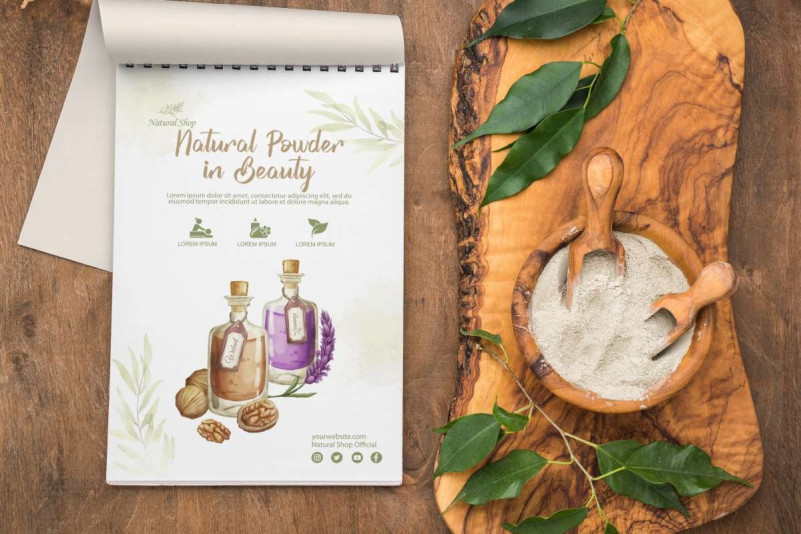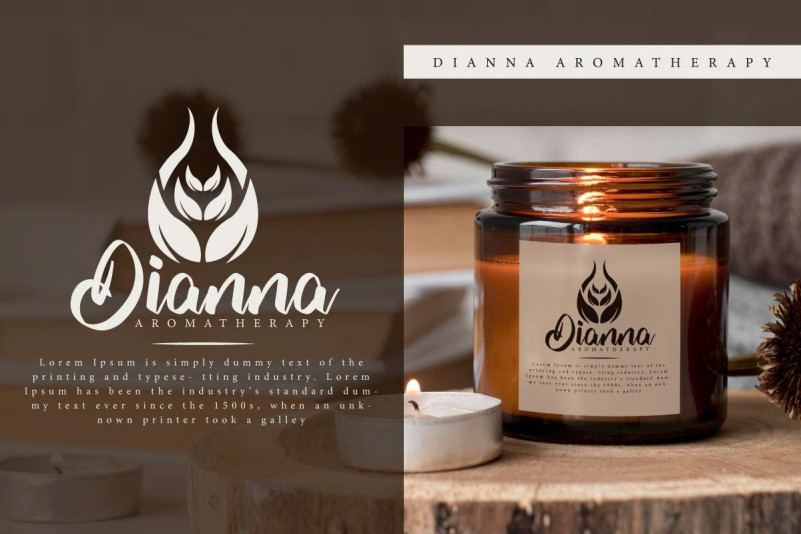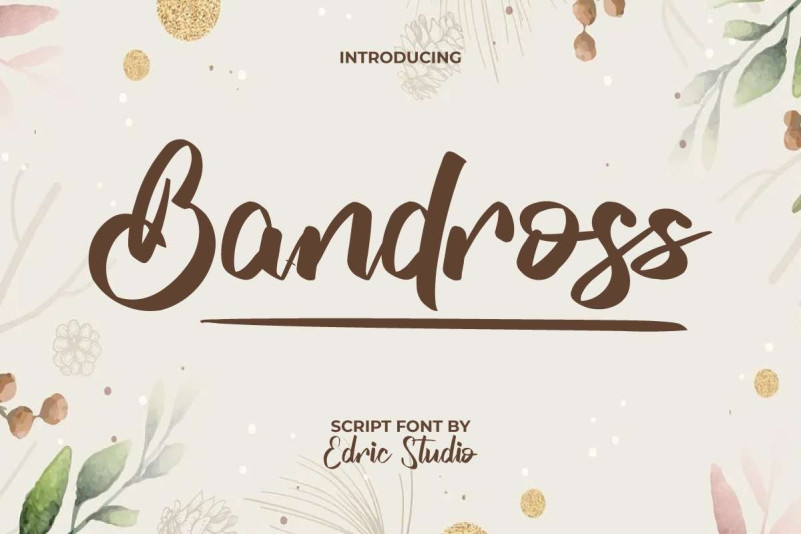
Bandross Font
Bandross Script Font is a bold script font with a stylish look created by EdricStudio. This font has a classic touch and tends to be bold in every letter which makes it stand out and easy to read making it suitable for any industry, such as accessories, fashion brand, handicraft, photography, printing, publishing, restaurant, spa, and much more.
Bandross Font comes with a full set of Uppercase and Lowercase Basic Characters, Number, a large range of Punctuation and Symbol. It has a stunning characters set, perfectly managed with well spaced and kerning. Bandross Font will be great for any projects (with extended license) including : brand logo, brochure, business card, label, magazine cover, packaging design, pamphlet, quote, screen print, signage, sticker, title, watermark, website, etc.
Bandross Font also has Ligature and Swoosh characters that you can choose and use to make it blend together and stand out perfectly. Ready to use both on Windows machine or Mac with simple installations with multilingual characters supported. It’s tested to work well in the Adobe Apps (Illustrator, Adobe InDesign, Adobe Photoshop) even work on Microsoft Word. PUA Encode Characters means you can access all characters easily – Fully accessible without additional design software.